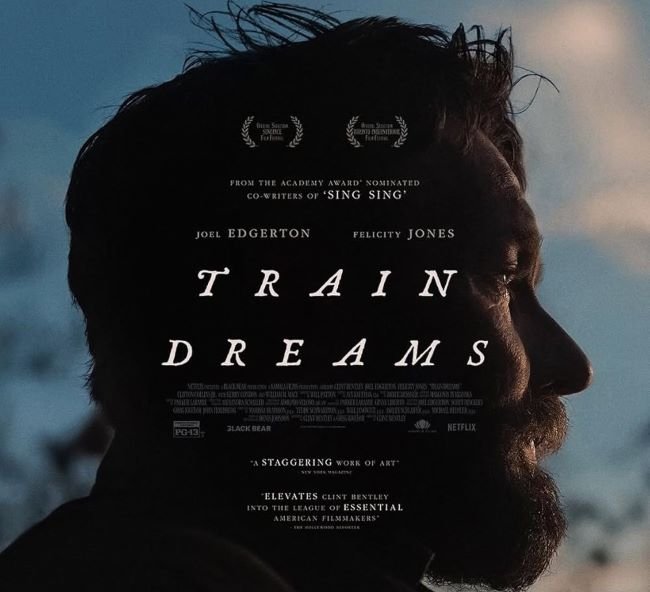
Train Dreams font — most likely 1689 GLC Garamond Pro Italic, with two free alternatives available — is the typography of a film adaptation of Denis Johnson’s celebrated novella about Robert Grainier, a logger and railroad worker whose quiet, ordinary life unfolds with unexpected depth against the sweeping changes of early twentieth-century America. The slightly weathered italic serif that characterises the title design places it firmly in the tradition of Americana literary typography. Two free alternatives approach this quiet, vintage, literary Americana register: Alternative 1 and Alternative 2.